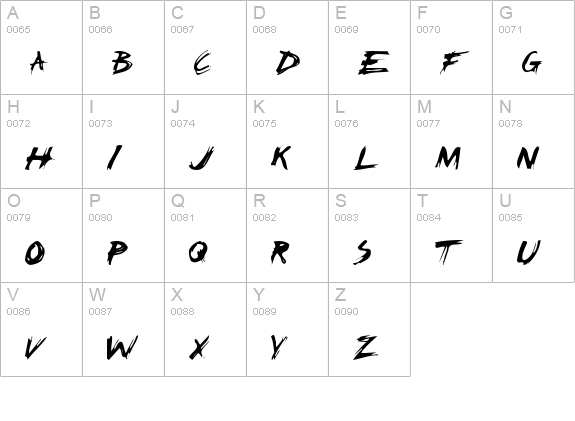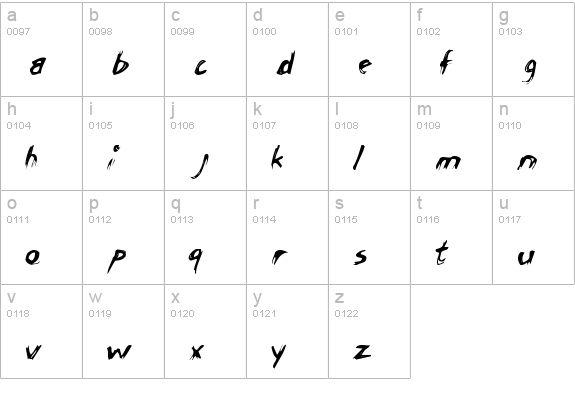
ChickenScratch Font Details
ChickenScratch font is a whimsical and playful typeface that brings a touch of charm and character to any design project. With its hand-drawn appearance and quirky details, this font is perfect for adding a personalized and unique touch to your creative works. Whether you're designing greeting cards, invitations, posters, or branding materials, ChickenScratch font will surely stand out and make a statement. The best part is that ChickenScratch font is available for free download at FontsMarket.com. You can easily access this delightful font and start incorporating it into your projects right away. Don't miss out on the opportunity to add a fun and creative element to your designs with ChickenScratch font!